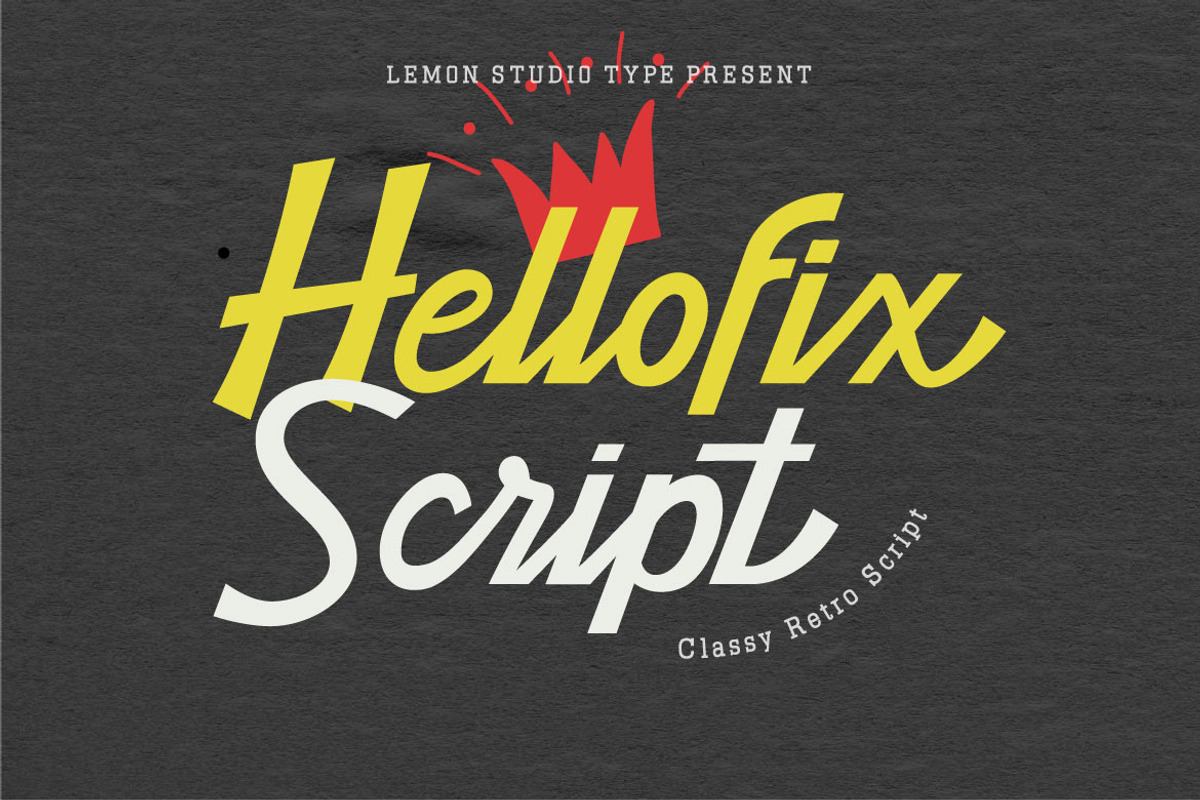
Hellofix Script - Retro Font Free Download is a bold and stylish script typeface that channels vintage vibes with a modern twist. Featuring smooth curves, elegant swashes, and a nostalgic handwritten flair, this font is perfect for retro branding, logos, t-shirt designs, signage, and social media graphics. It captures that classic Americana and 70s groove, ideal for projects that need personality and flair.
Using the Hellofix Script - Retro Font Free Download brings charm, movement, and a handcrafted feel to your work. Whether you're creating throwback visuals or simply want to add a touch of timeless style to your brand, Hellofix offers the versatility to shine in both digital and print formats.